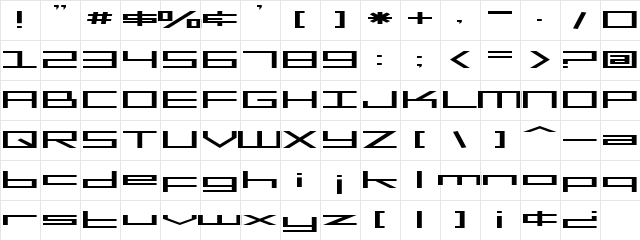
SF Square Head Extended Regular
Design Context for SF Square Head Extended Typeface
SF Square Head Extended takes a measured approach to typography — its balanced proportions and neutral character make it a reliable workhorse for both digital and print work.